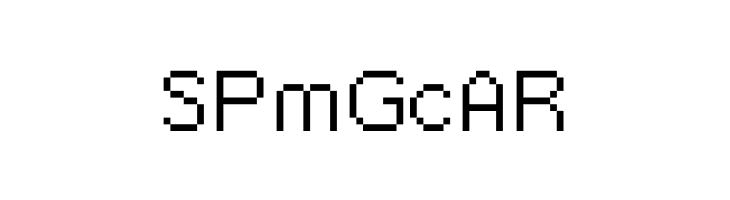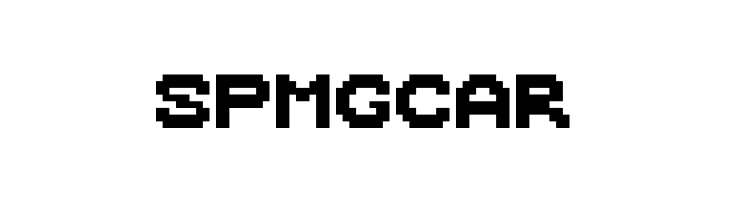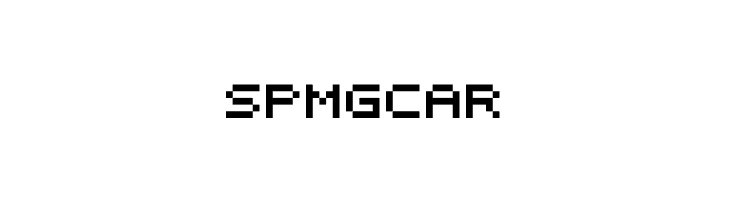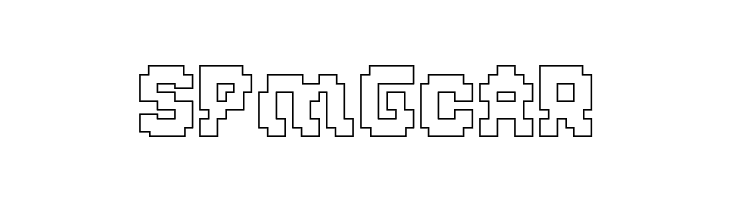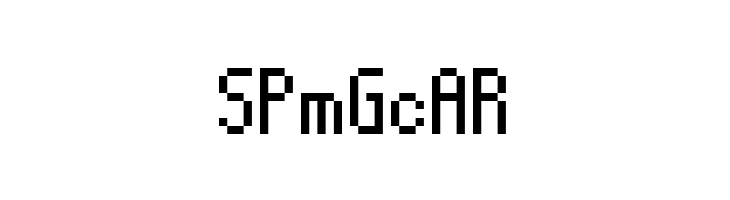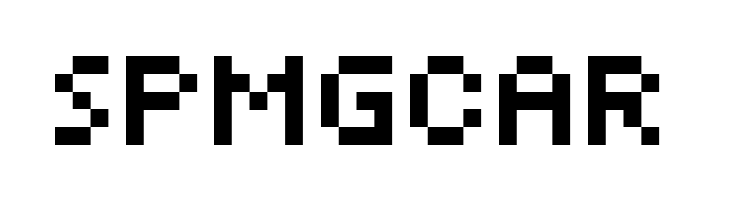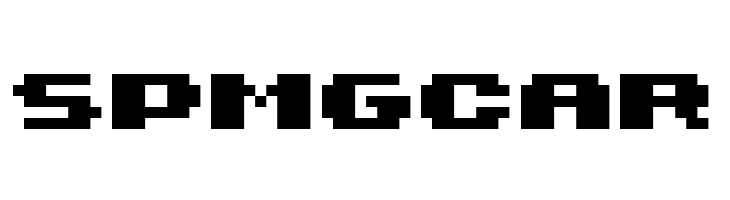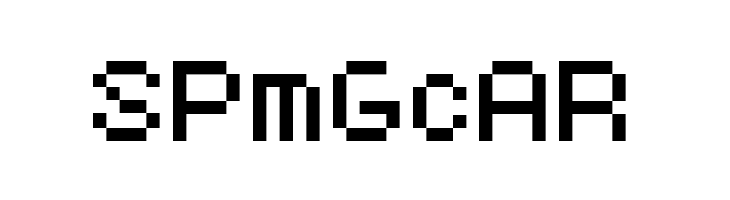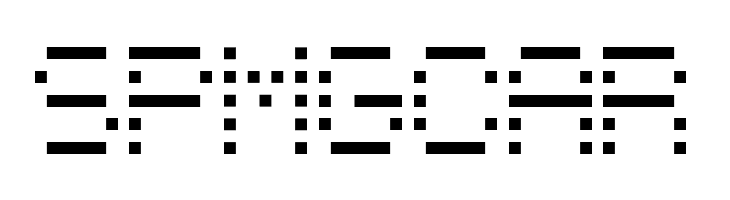
A pixelated, grid-based font with a retro digital aesthetic.
A bold, pixelated font with a retro, video game-inspired design.
A pixelated, retro font with a blocky, digital aesthetic.
A pixelated, monospaced font with a retro digital aesthetic.
A pixelated, hollow font with a glitchy, retro digital style.
A pixelated, monospaced font with a retro digital style.
A pixelated, monospaced typeface with a retro digital aesthetic.
A pixelated, retro-style font with a bold, blocky appearance.
A pixelated, monospaced font with a retro digital aesthetic.
A pixelated dot-matrix font with a digital, retro aesthetic.